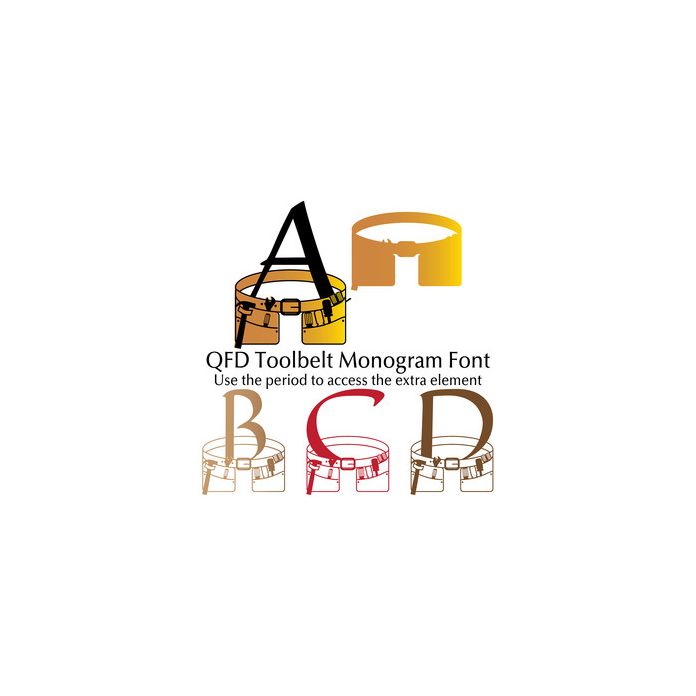
qfd toolbelt monogram font
Great for Dad or the carpenter in your life! Combine this fun font with the other QFD Monogram fonts! See our detailed monograms tutorial by clicking the Instructions button. Use the period to access the extra element. If you have any questions, please feel free to contact me!